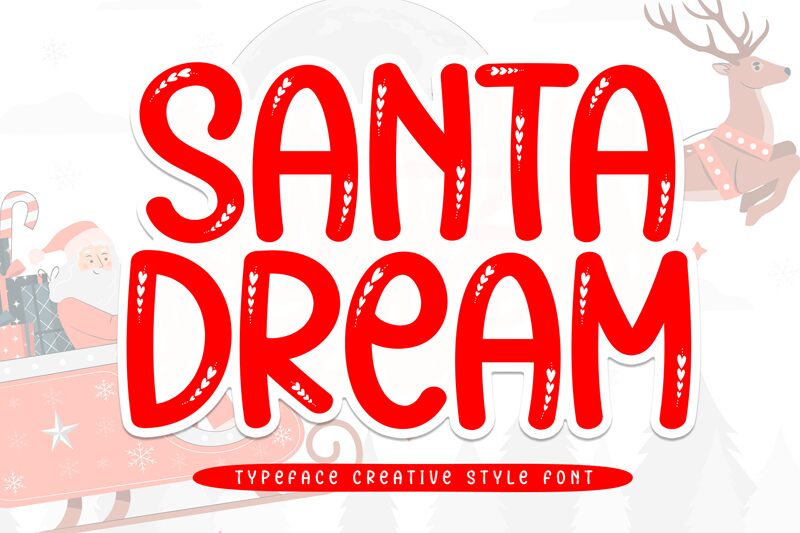
Santa Dream font by Scratchones is a free font that brings the cheerful spirit of holidays to life. Its whimsical character invites friendliness and joy to your projects. Lively curved letters with a decorative touch introduce an impactful visual element across various occasions. Use Santa Dream to effectively communicate friendly seasonal messages while catching the eye with a vibrant color palette.
Because Santa Dream font has a very vibrant vibe, it’s perfect for Christmas gift cards, souvenirs, or even printed fabrics. Get inspired and add it to branding, titles, headlines, headings, or even body text. Enhancing social media campaigns or environmental graphic design is also possible as it facilitates strong visual communication easily across any form of media.